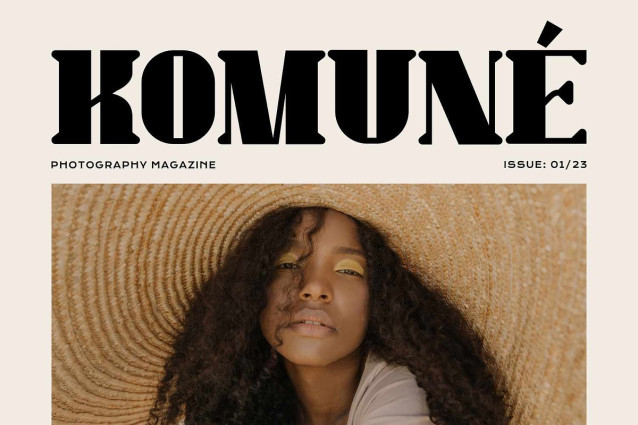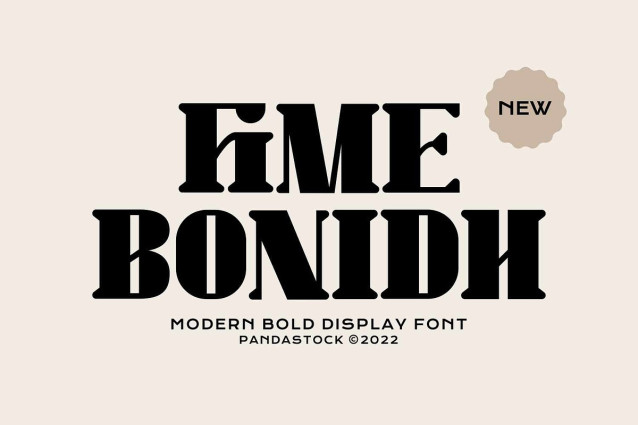
Fime Bonidh Font
Fime Bonidh Font is a quirky bold typeface that blends modern elegance with vintage charm. Chunky serifs, and unique cut in details make it stand out in headlines, branding, and editorial layouts. The letterforms feature a harmonious balance of geometric precision and expressive curves, with distinctive alternates and ligatures that add versatility.
Perfect for magazine titles, fashion campaigns, logos, editorial headlines, packaging, album covers, and any project.